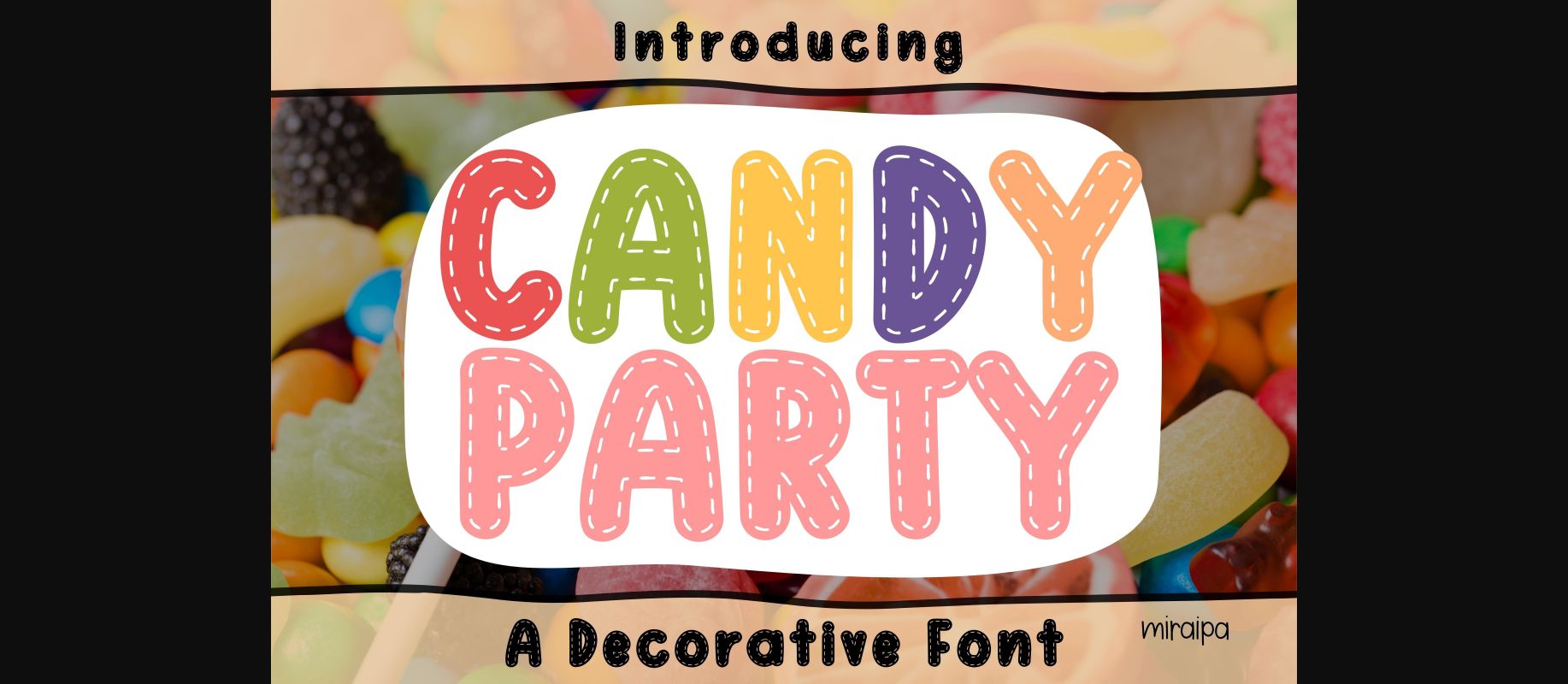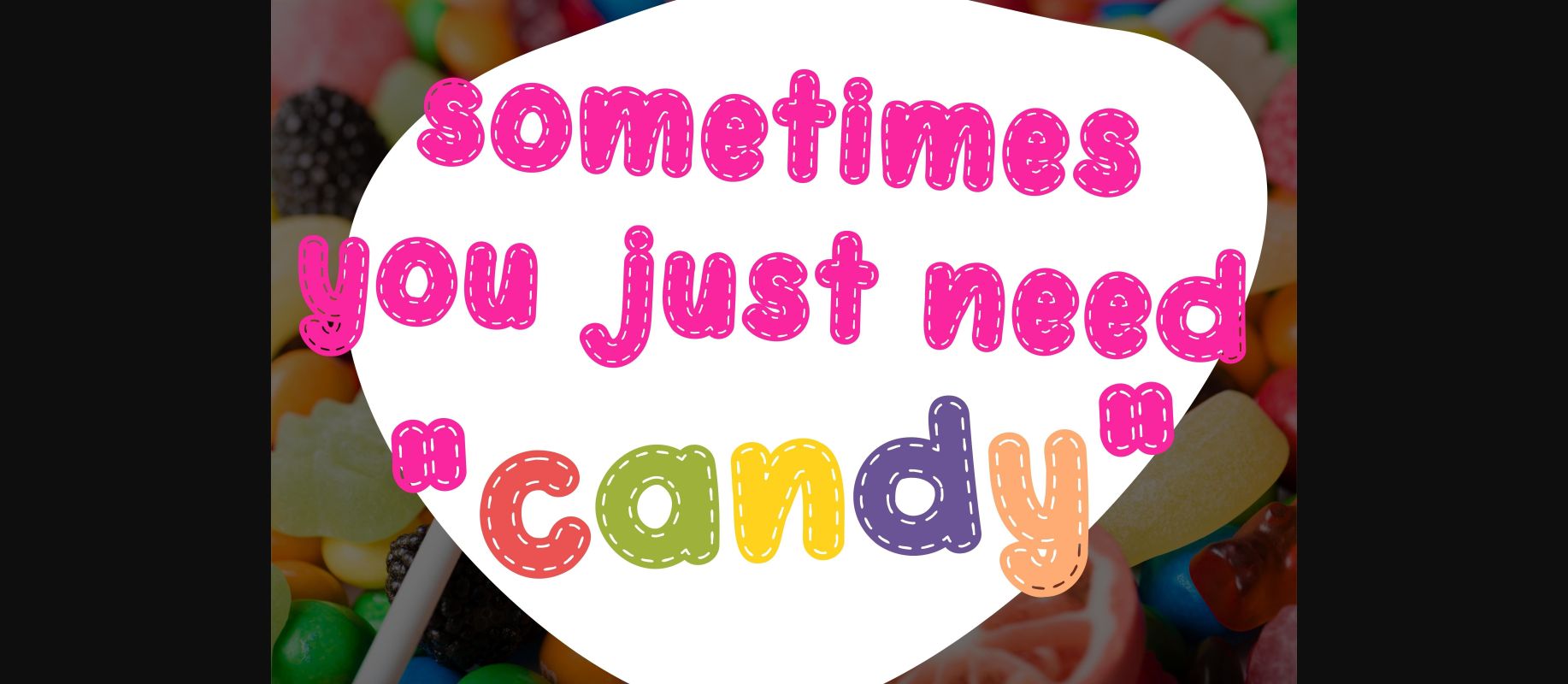
About Candy Party Font
Candy Party is a decorative font designed in a friendly and playful style. It would be awesome for your colorful projects, mom projects, weddings, back-to-school, party decorations, invitations, posters, blogs, clothing, greeting cards, social media posts, or anything that needs a friendly touch. Add it now to your font library, and it will bring any of your DIY projects to life!